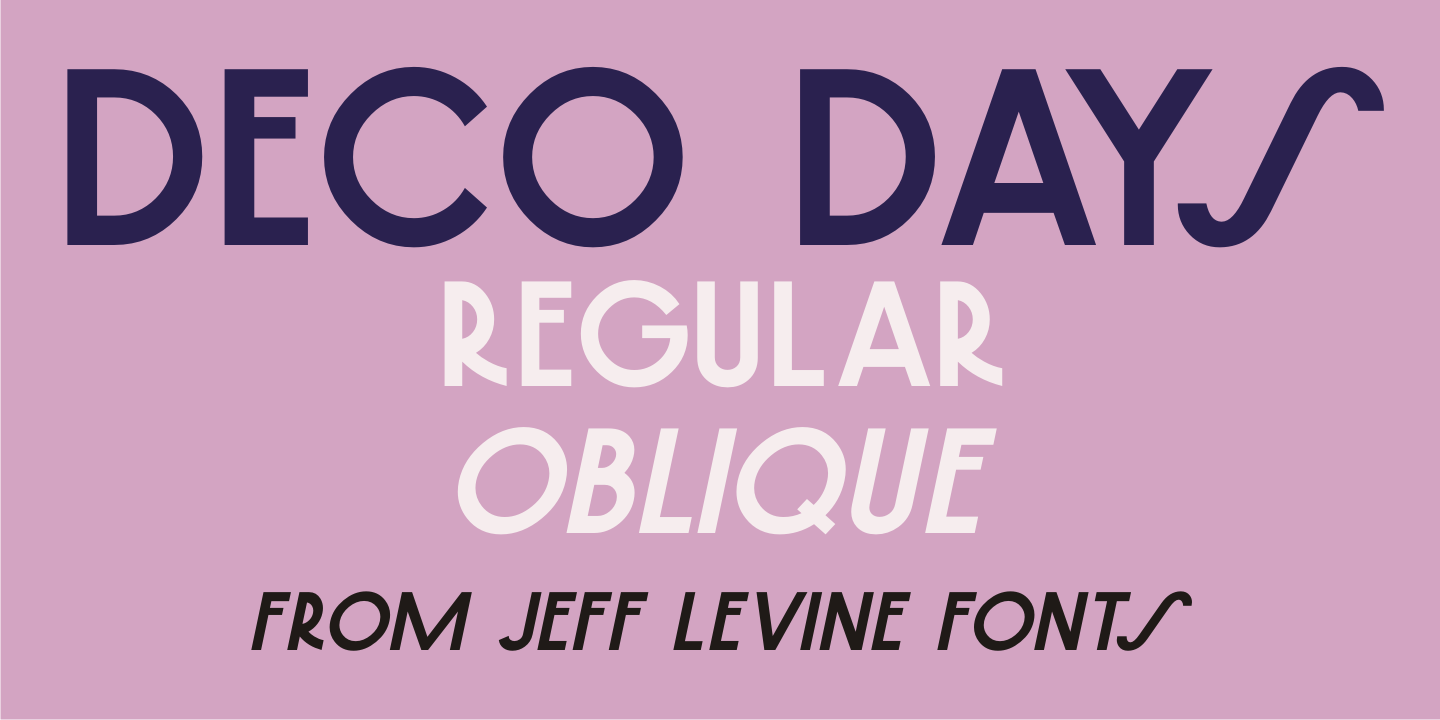
Designed by Jeff Levine, Deco Days JNL is a art deco font family. This typeface has two styles and was published by Jeff Levine Fonts.
The hand lettered pre-Deco style title and songwriters’ credits on the cover of the sheet music for 1929s “The Love Parade” were the models for Deco Days JNL, which is available in both regular and oblique versions.